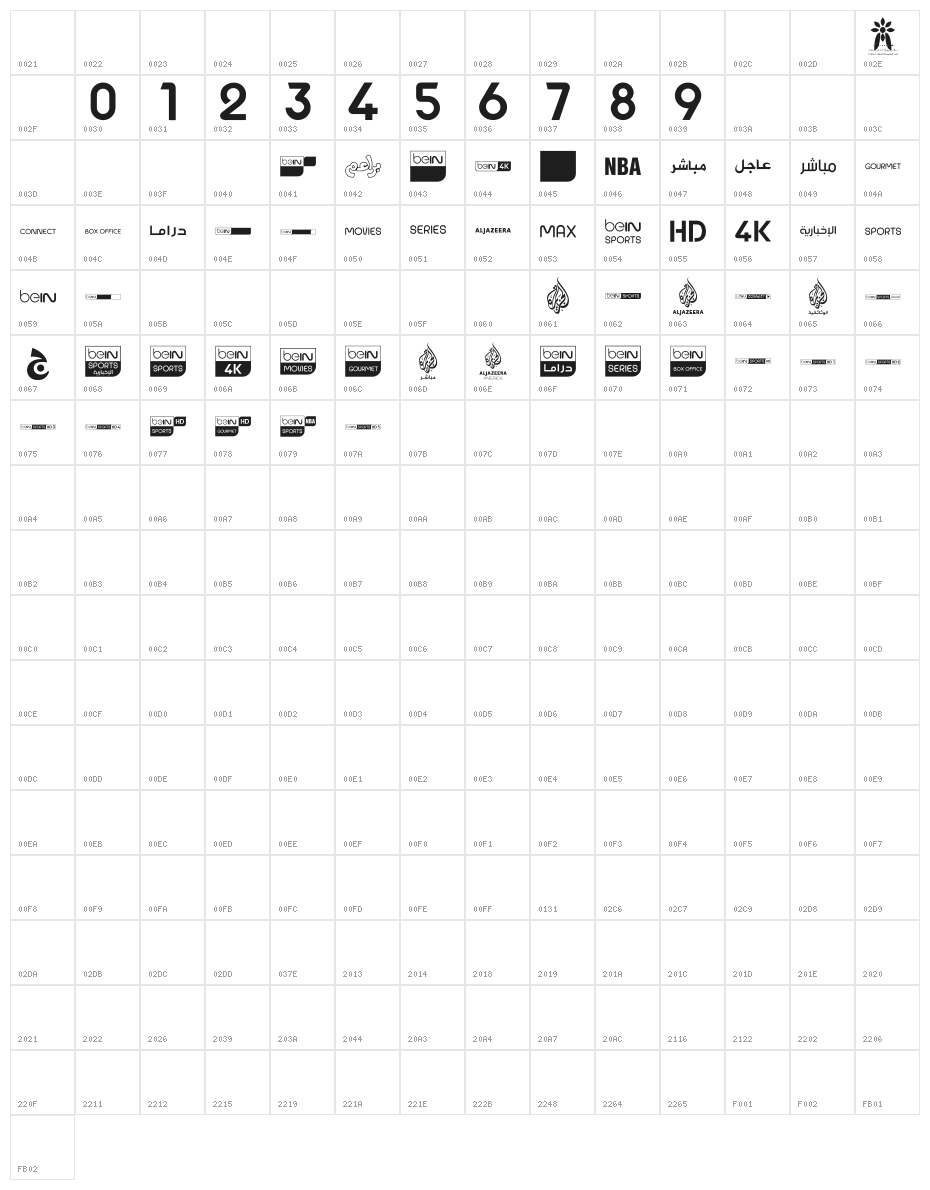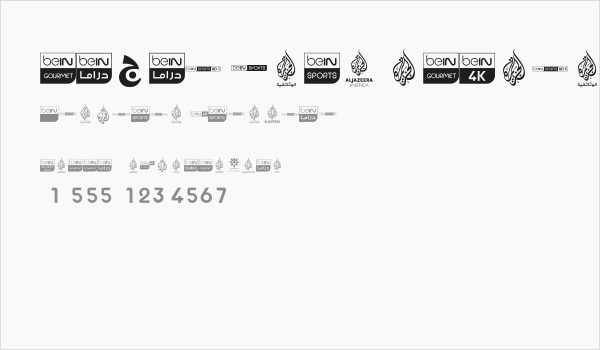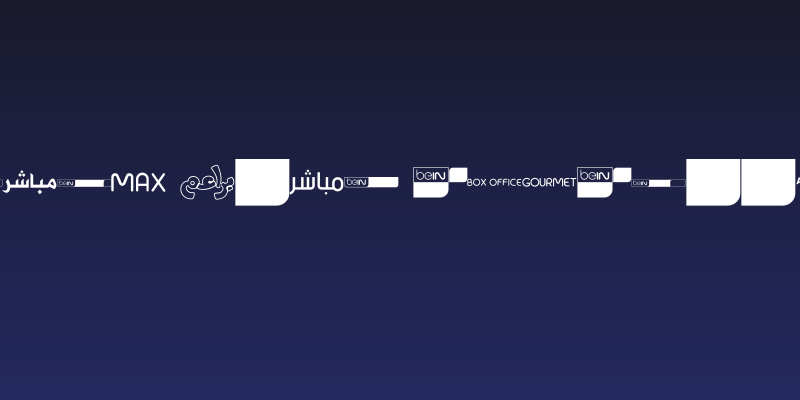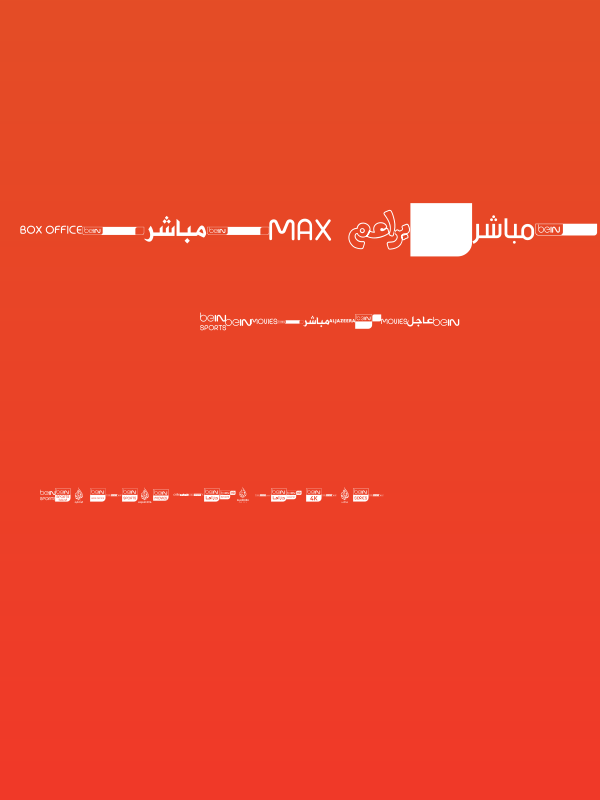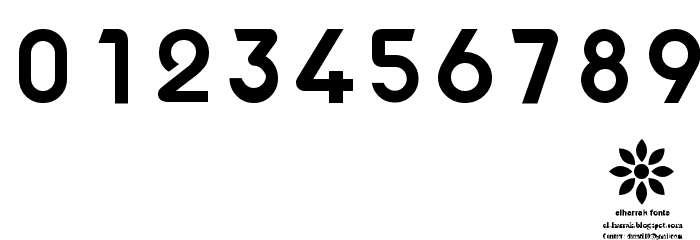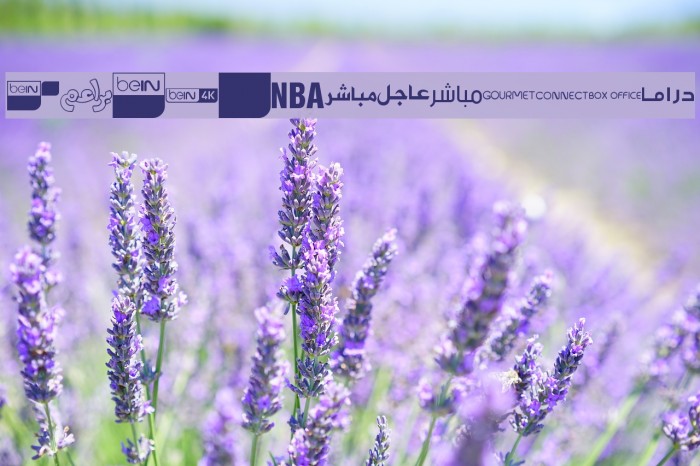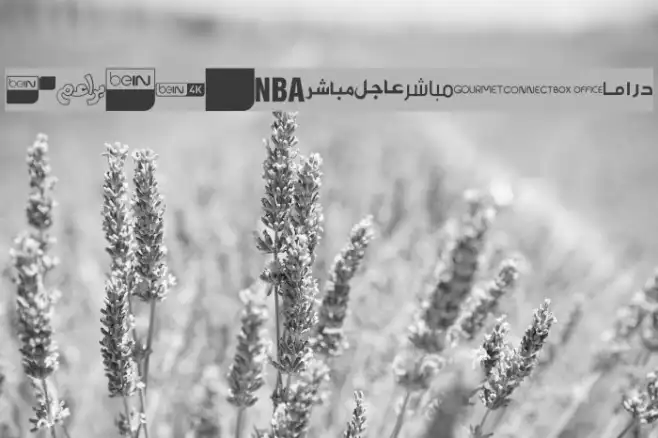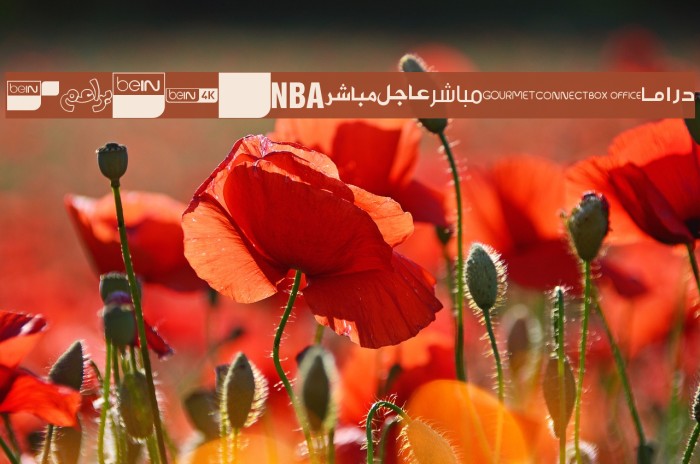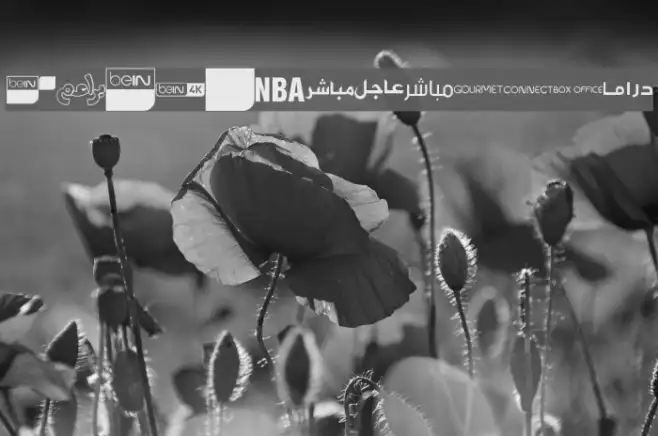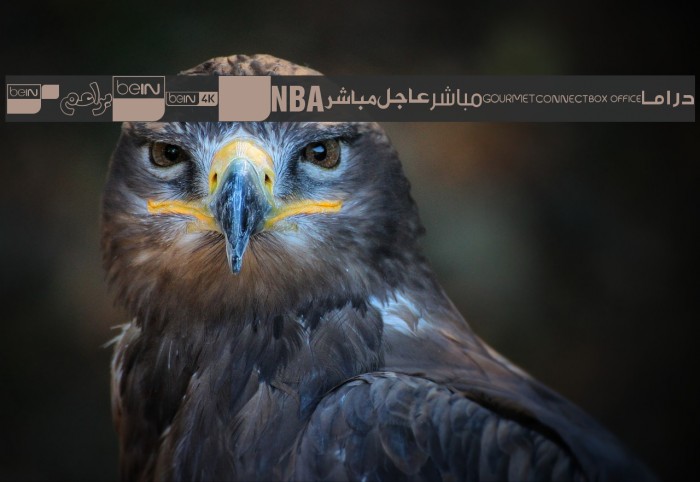
logos bein aljazeera Font
logos bein aljazeera Description
This image features a collection of logos and text associated with media and broadcasting networks. The design elements include a mix of bold and regular weights, with a modern and clean aesthetic. The typography is primarily sans-serif, characterized by geometric shapes and consistent stroke widths. The logos incorporate both English and Arabic text, reflecting a bilingual approach. The numbers are bold and clear, suitable for digital displays. Overall, the design conveys a sense of professionalism and modernity, suitable for media and entertainment branding.